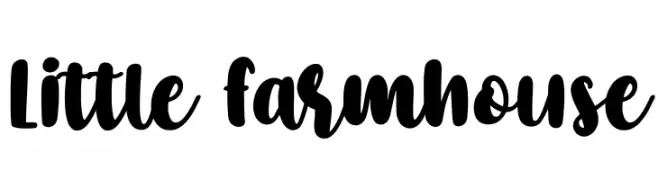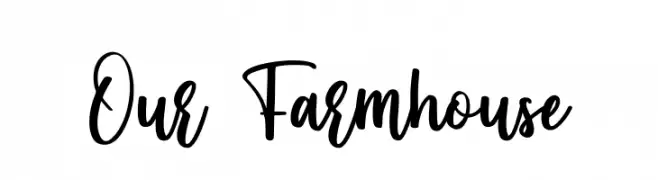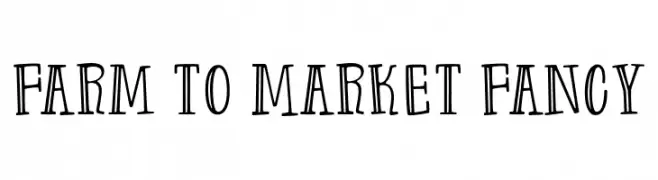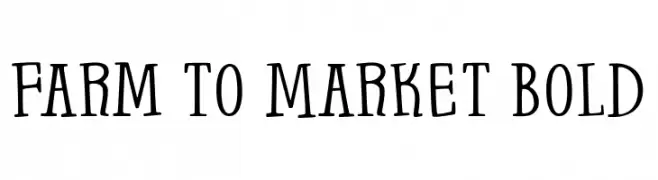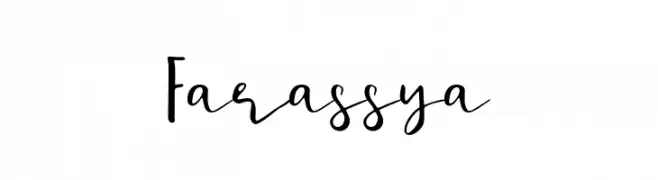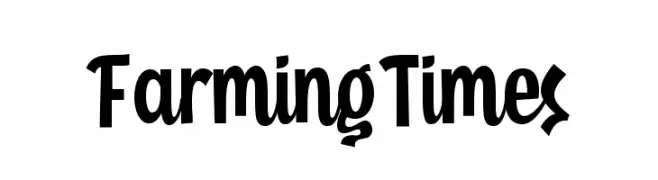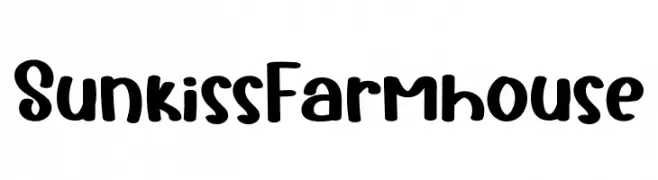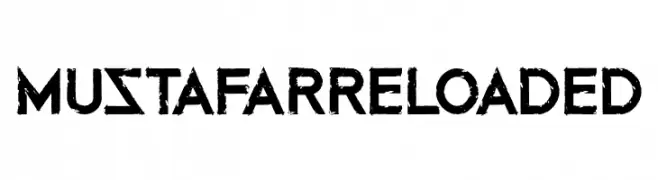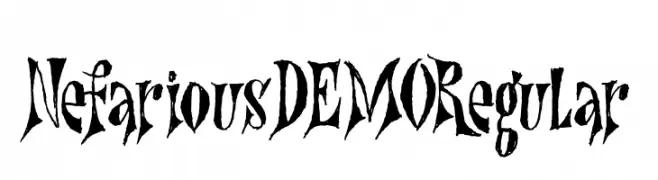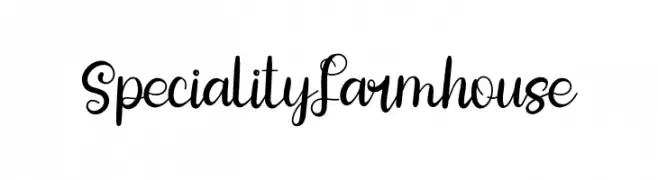
A decorative script font with elegant swirls and loops.
A graceful script font with fluid, connected strokes and a sophisticated appearance.
A bold, handwritten font with a playful and organic style.
A charming, handwritten font with a playful and casual feel.
A playful, whimsical font with tall, narrow letters and exaggerated serifs.
A playful, hand-drawn style font with tall, narrow letters and a whimsical touch.
A bold, playful font with a hand-drawn, whimsical style.
A playful, handwritten font with a whimsical, rustic charm.
A playful, handwritten font with bold uppercase and cursive lowercase letters.
A bold, playful font with dynamic slanted characters.
A bold, playful handwritten font with rounded edges and a casual style.
A bold, distressed font with a futuristic and edgy design.
A sharp, gothic-inspired font with dramatic serifs and a dark, edgy aesthetic.
A whimsical and elegant script font with flowing, cursive letterforms.
A playful, handwritten font with tall, narrow letters and a casual style.
An elegant, cursive font with a fluid, handwritten style.
An elegant and flowing script font with ornate uppercase and smooth lowercase letters.
A sophisticated script font with elegant, flowing cursive letters.
A dynamic and elegant script font with fluid, cursive strokes and expressive loops.
A delicate, flowing script font with elegant, connected strokes.
A playful handwritten font with smooth, flowing lines and a casual style.
A bold, playful handwritten font with rounded edges and a smooth flow.
A dynamic, handwritten italic font with elongated strokes and a playful elegance.
A bold, expressive handwritten font with dynamic strokes.
A bold, high-contrast serif font with elegant and expressive characteristics.
A bold, expressive handwritten font with dynamic strokes and a playful style.
A lively and elegant script font with flowing, cursive letters and dramatic flourishes.
An elegant script font with flowing, ornate characters and high contrast strokes.
A bold, distressed font with a hand-drawn, textured style.
A bold, distressed font with a playful and vintage style.
A graceful and elegant script font with fluid strokes.
A farm-themed pictogram dingbat font with cartoon-style illustrations.
A playful, cloud-like font with bold, rounded characters.
A bold, hand-painted style font with a dynamic and energetic appearance.
A playful, rounded font with bold, smooth curves and consistent thickness.